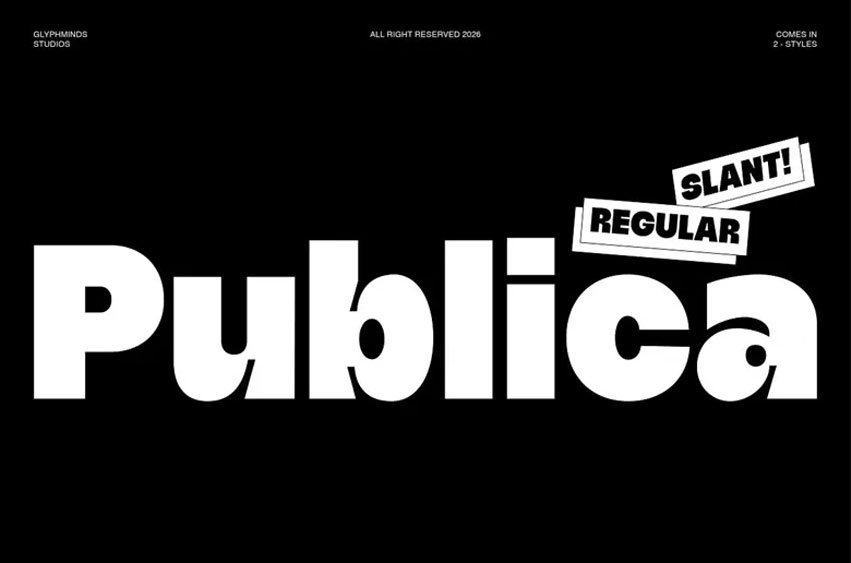
Publica Font
Publica Font is a bold, modern display font that stands out while keeping a clean, contemporary look. It comes in two styles – Regular and Slanted – making it a great choice for designers, creators, agencies, and brands who want to make a lasting impression.
Perfect for: Branding, Logo Design, Posters, Editorial Layouts, Magazine Covers, Packaging Design, Social Media Content, Streetwear Projects, Advertising Campaigns, Website Headlines